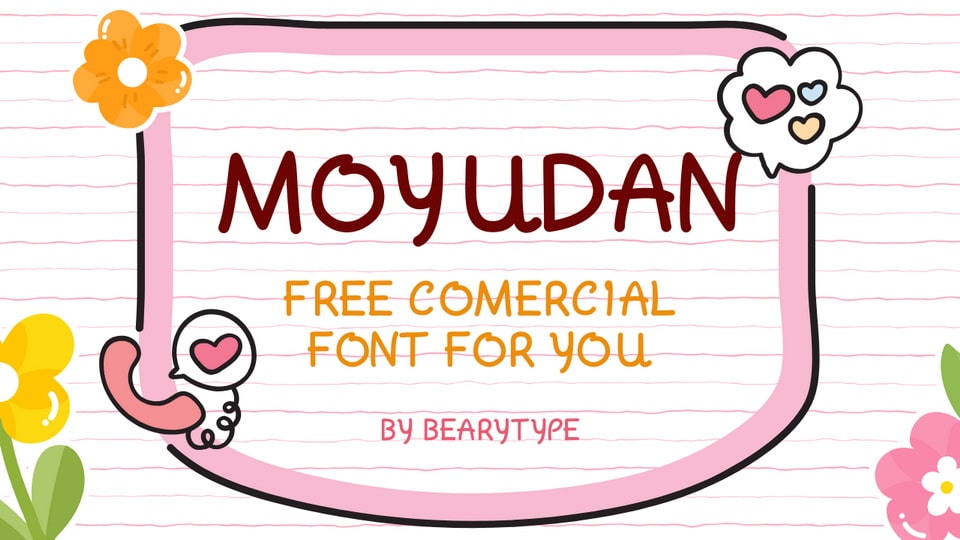
Download Moyudan font, a fun and cheerful handwritten typeface, perfect for children’s projects, playful branding, packaging, greeting cards, and more.
Designer: BearyType